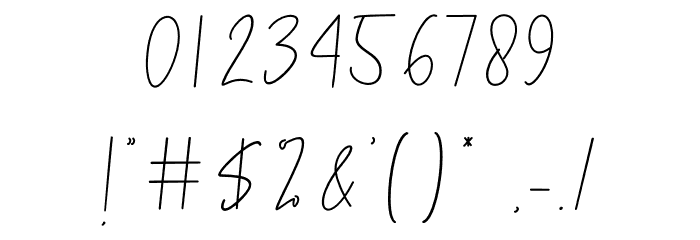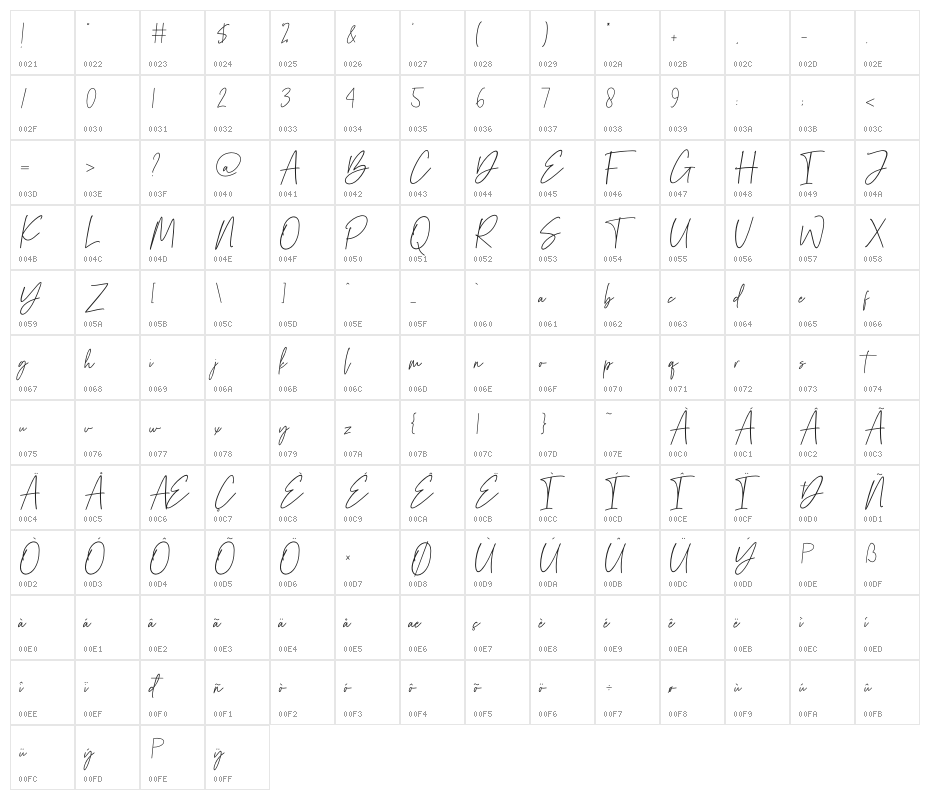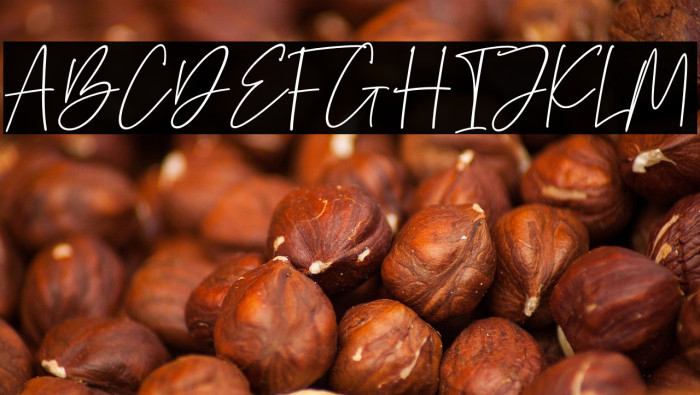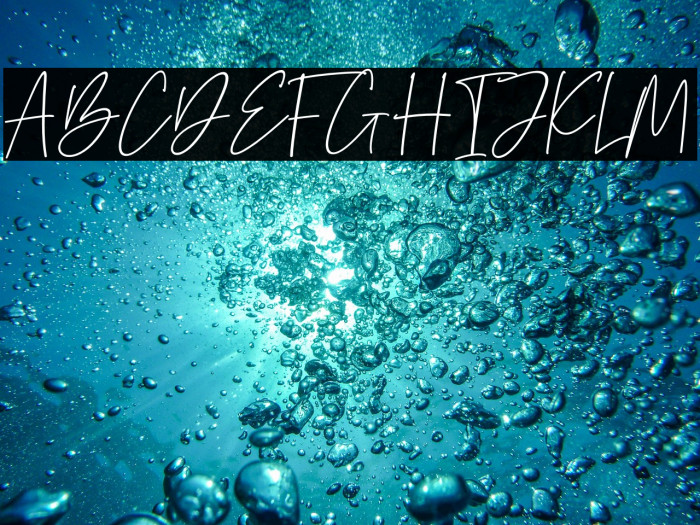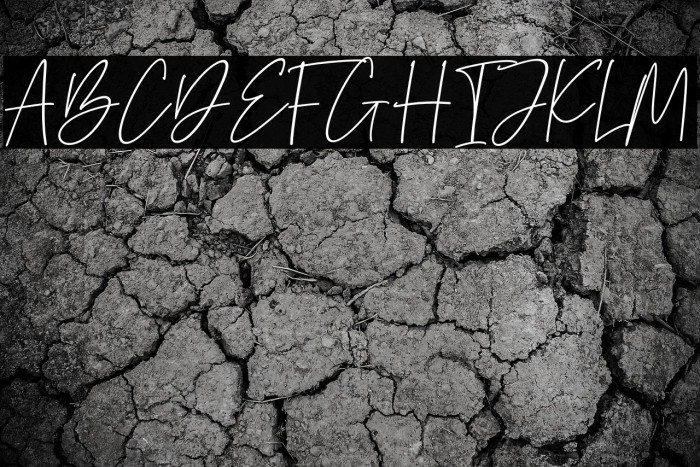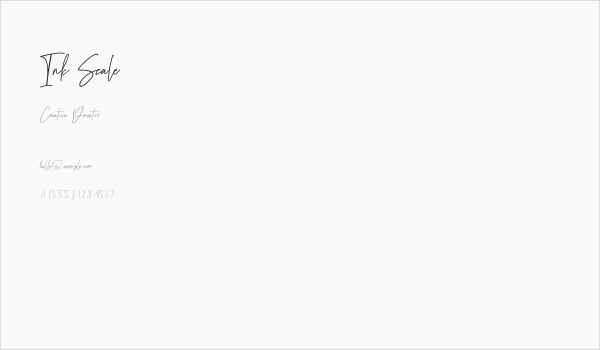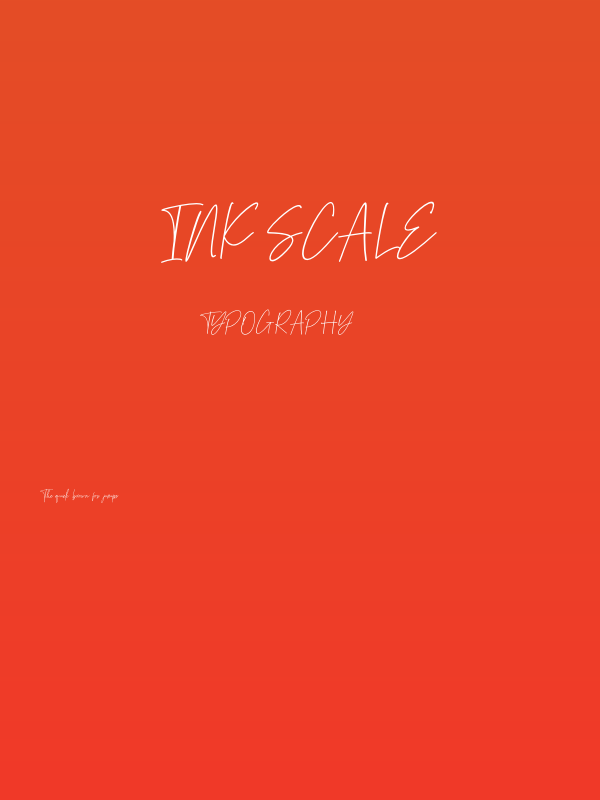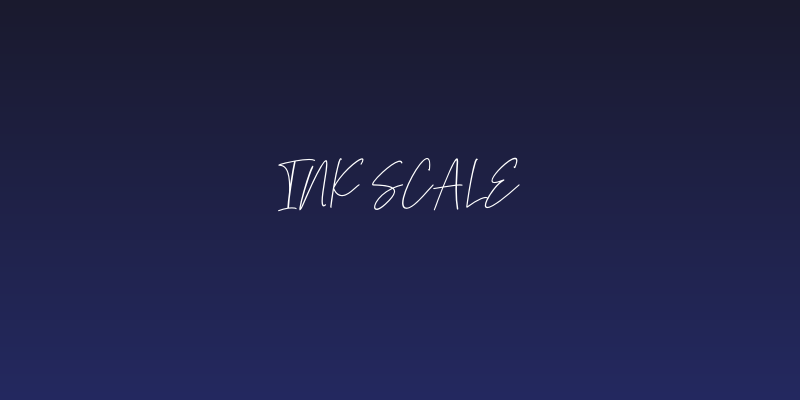
Ink Scale Font
Ink Scale Description
This font features a handwritten style with a casual and flowing appearance. The letters are slightly slanted, giving it a dynamic and lively feel. The strokes are thin and consistent, providing a delicate and elegant look. The uppercase letters are tall and narrow, while the lowercase letters maintain a smooth and connected script. Numbers and special characters are designed to match the overall aesthetic, ensuring a cohesive look across all text. This font is suitable for projects that require a personal touch and a sense of warmth.
| Proposed Projects | Ideal for invitations, greeting cards, personal branding, and social media graphics. |